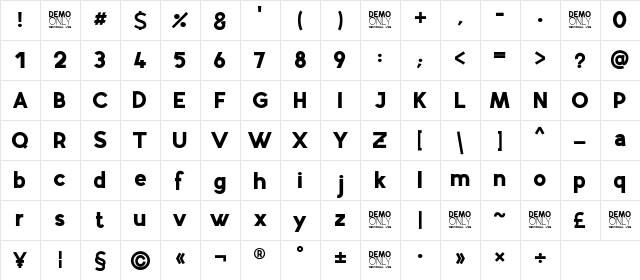
Airfly DEMO Free Font
Airfly DEMO
Foundry: phitradesign GbR
Designer: Christoph D￿
Design Context for Airfly
Airfly is a composed and adaptable typeface that performs quietly and consistently across a wide range of design contexts.